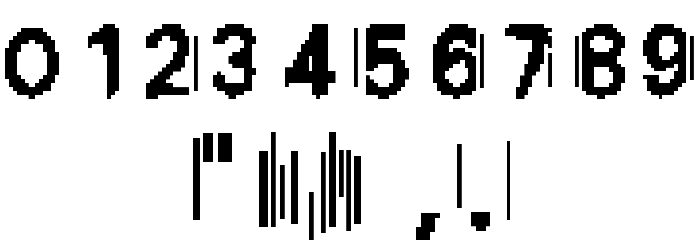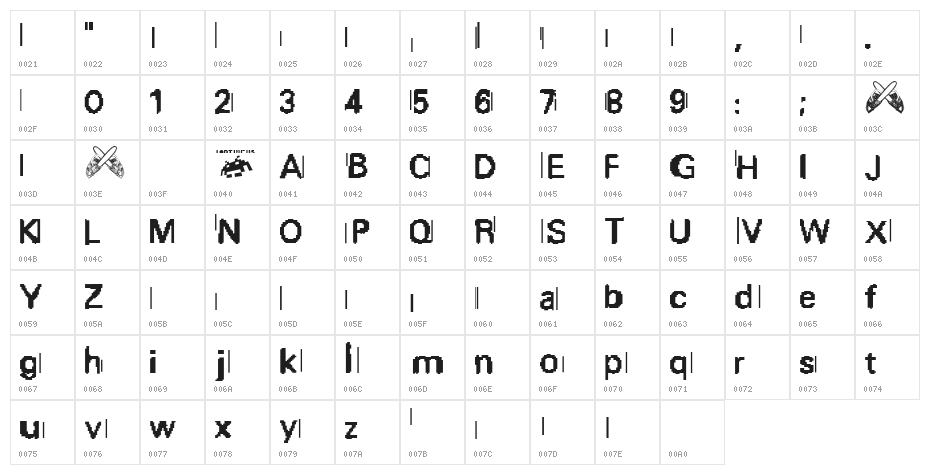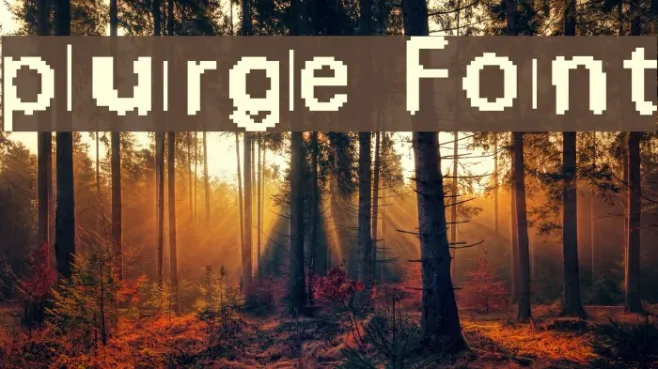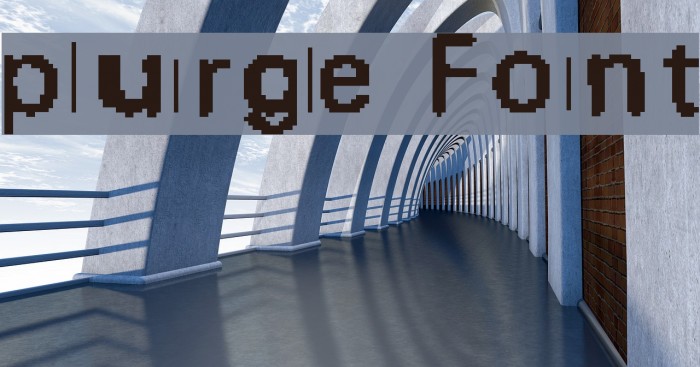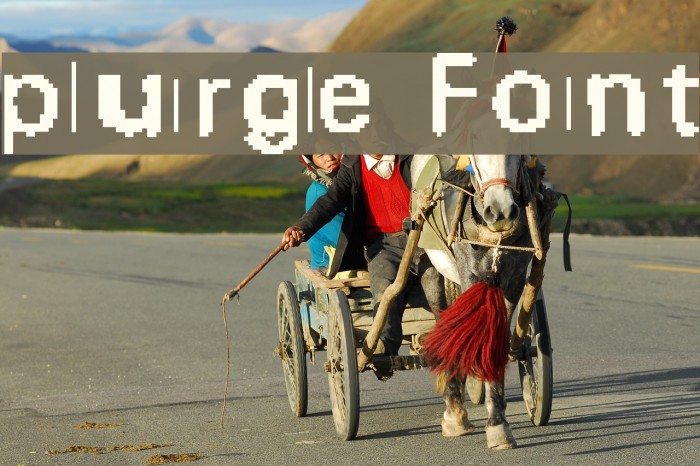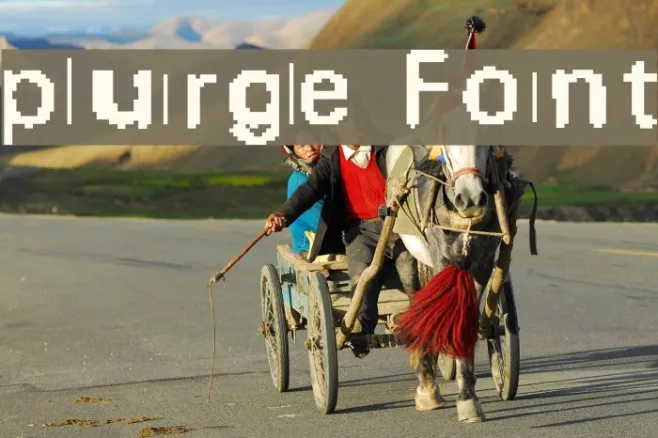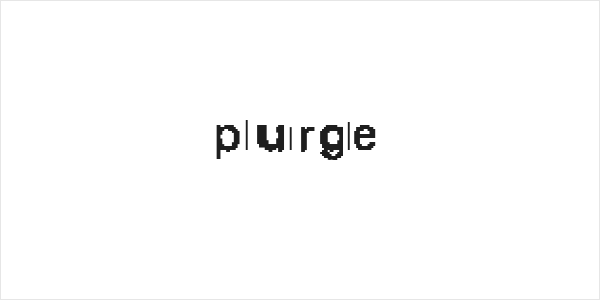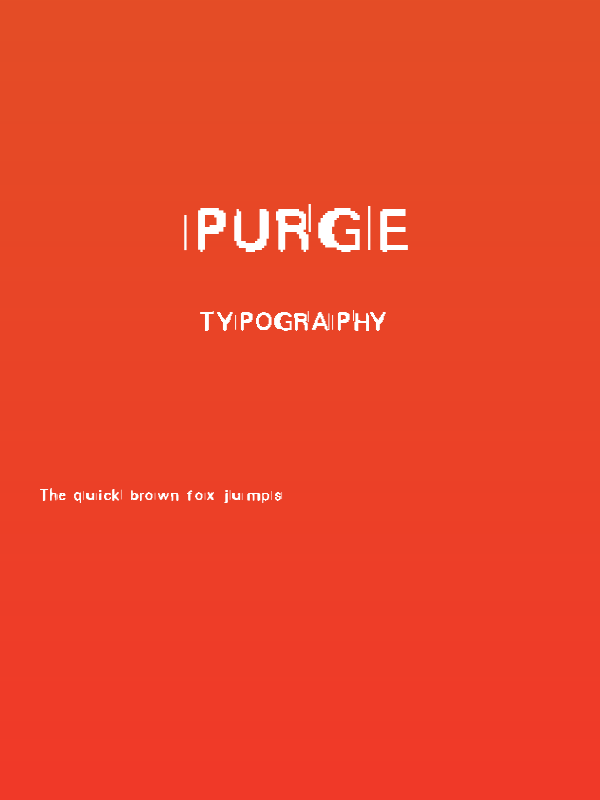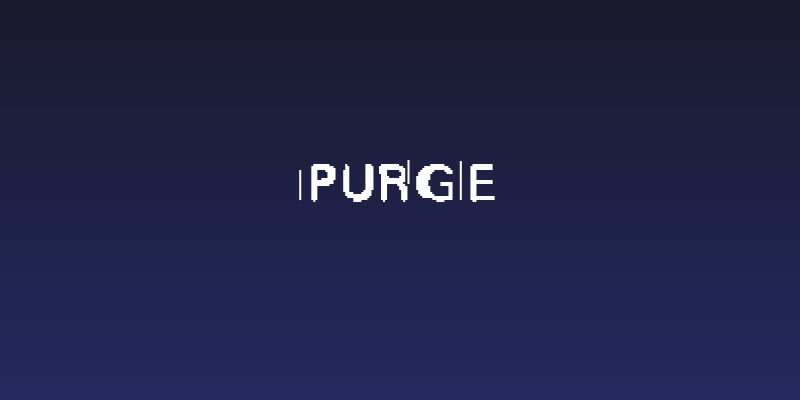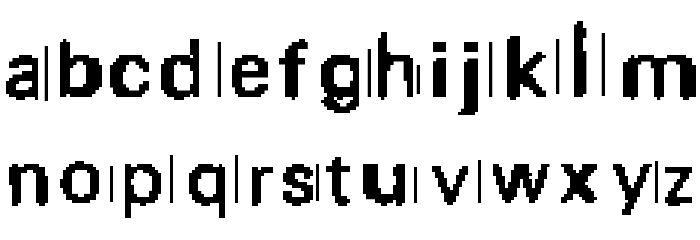
purge Font
purge Description
This font features a bold and geometric design with a strong emphasis on straight lines and sharp angles. The uppercase letters are uniform in height, creating a cohesive and structured appearance. The lowercase letters maintain a similar geometric style, with consistent stroke widths that contribute to a balanced look. The numerals are distinct and easily readable, following the same bold and angular aesthetic. Special characters are designed to match the overall style, ensuring visual harmony across all elements. This font's boldness and clarity make it suitable for impactful designs.